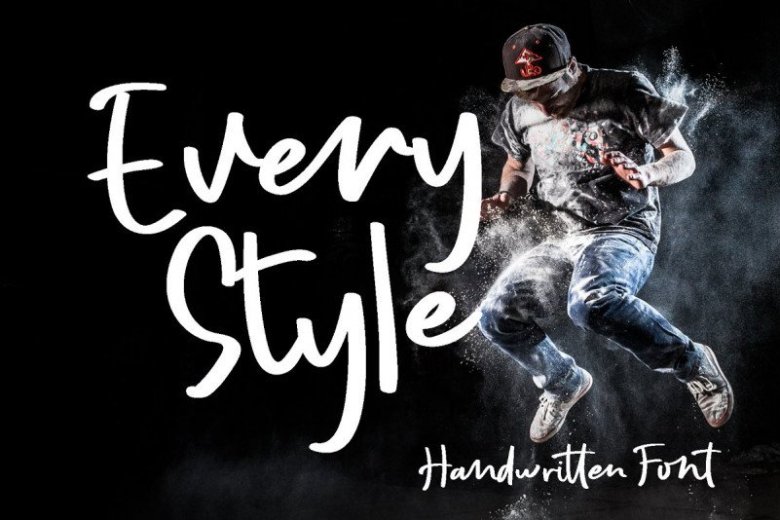
Every Style Script Font
Every Style Font a casual handwritten font. This is an unique signature script. Its handwritten look will add a personal touch to every design. It is design and shared by alphArt. It’s a handwritten script font with a simple and natural style, this font is great for your next creative projects such as watermark on photography, quotes, album cover, logo, business card, and many other design project.
It’s comes with uppercase letters, lowercase alternative letters, numbers, punctuation, ligature and multi lingual support